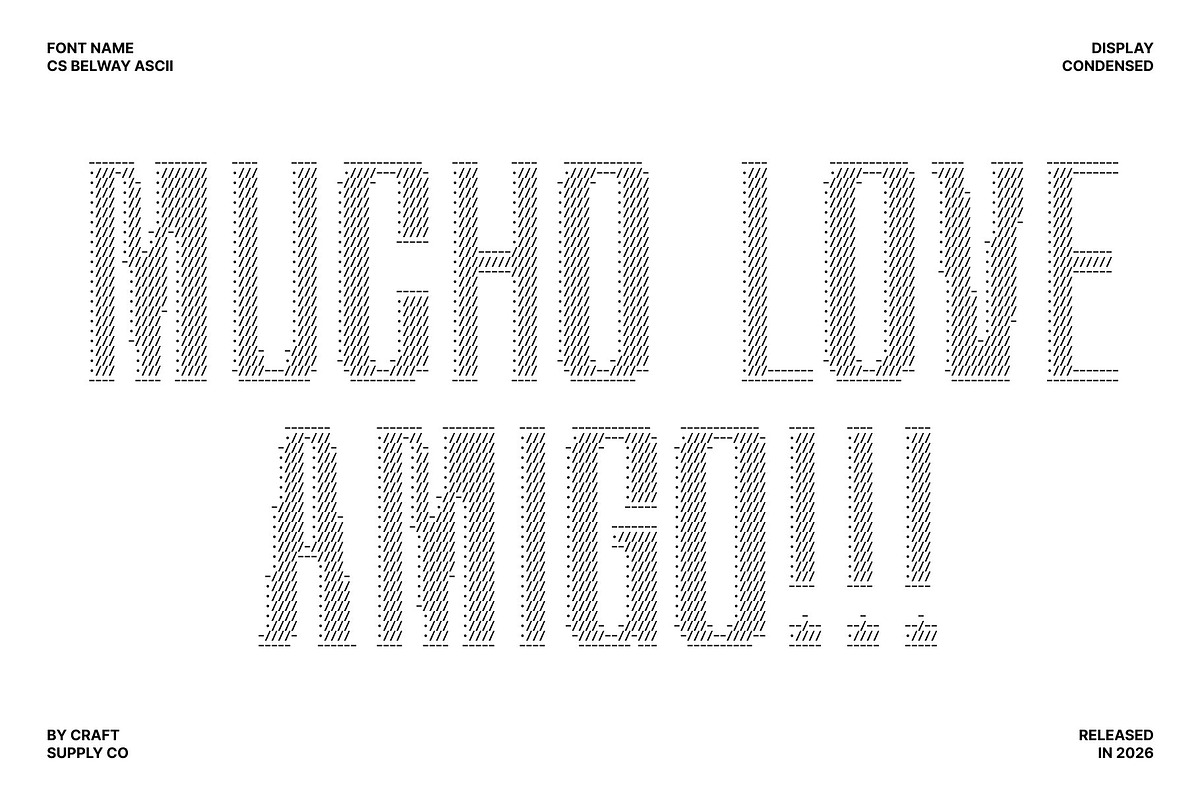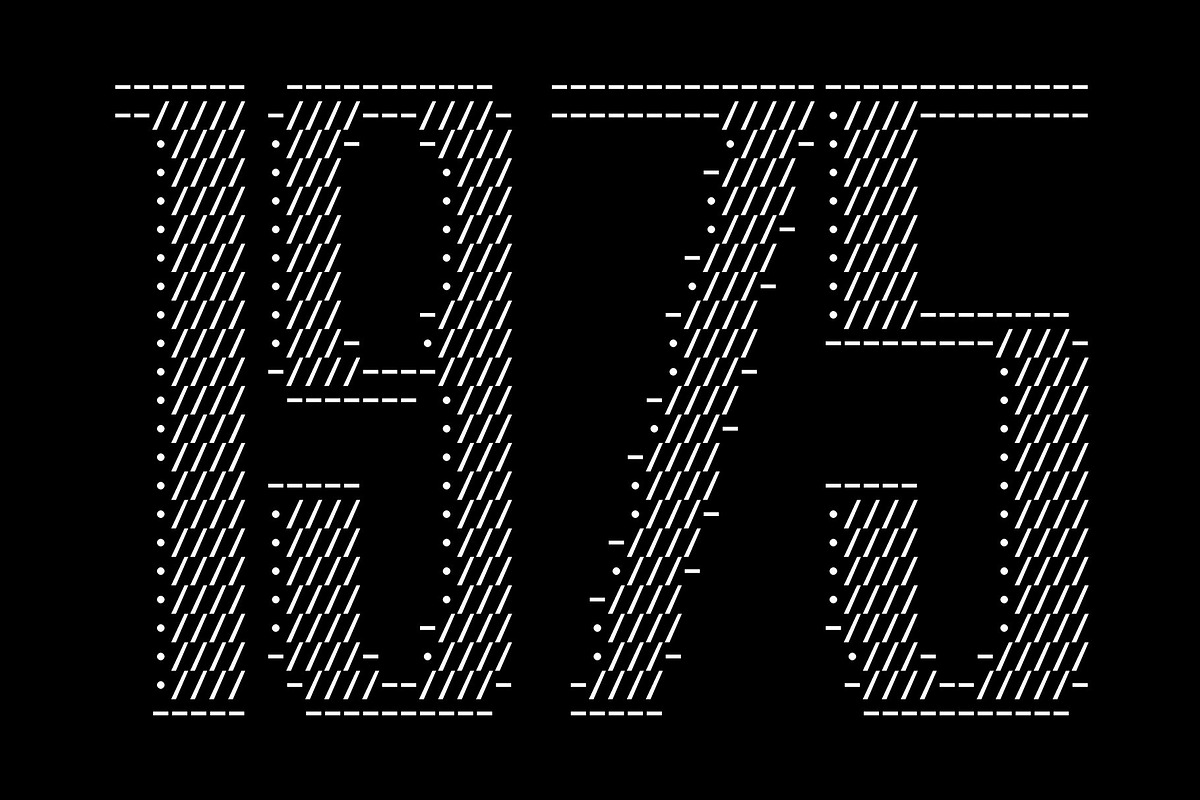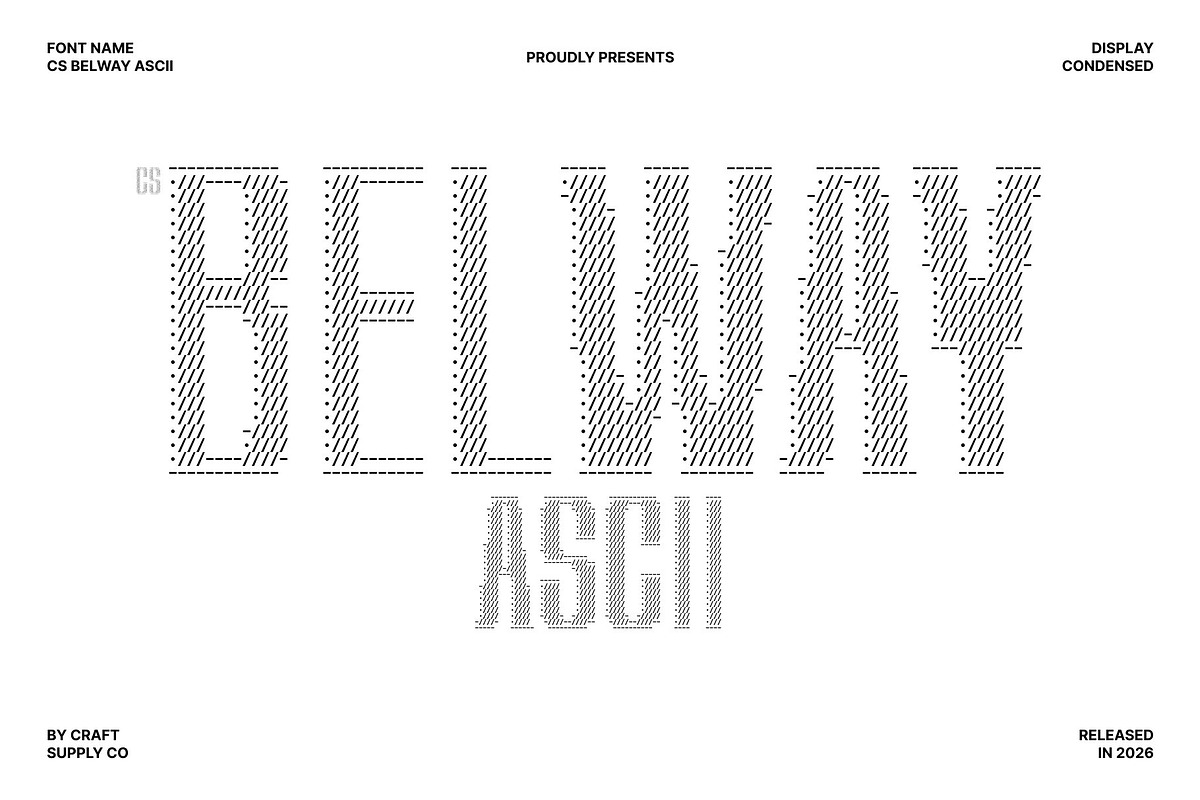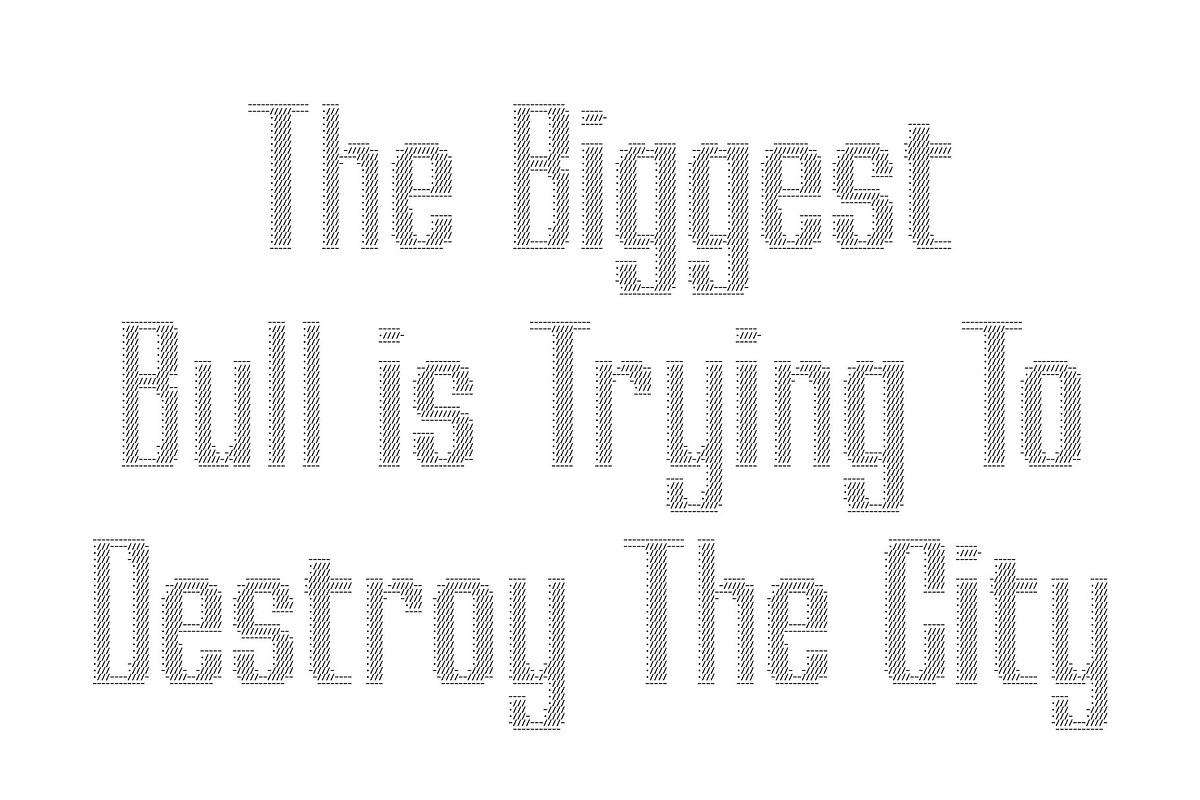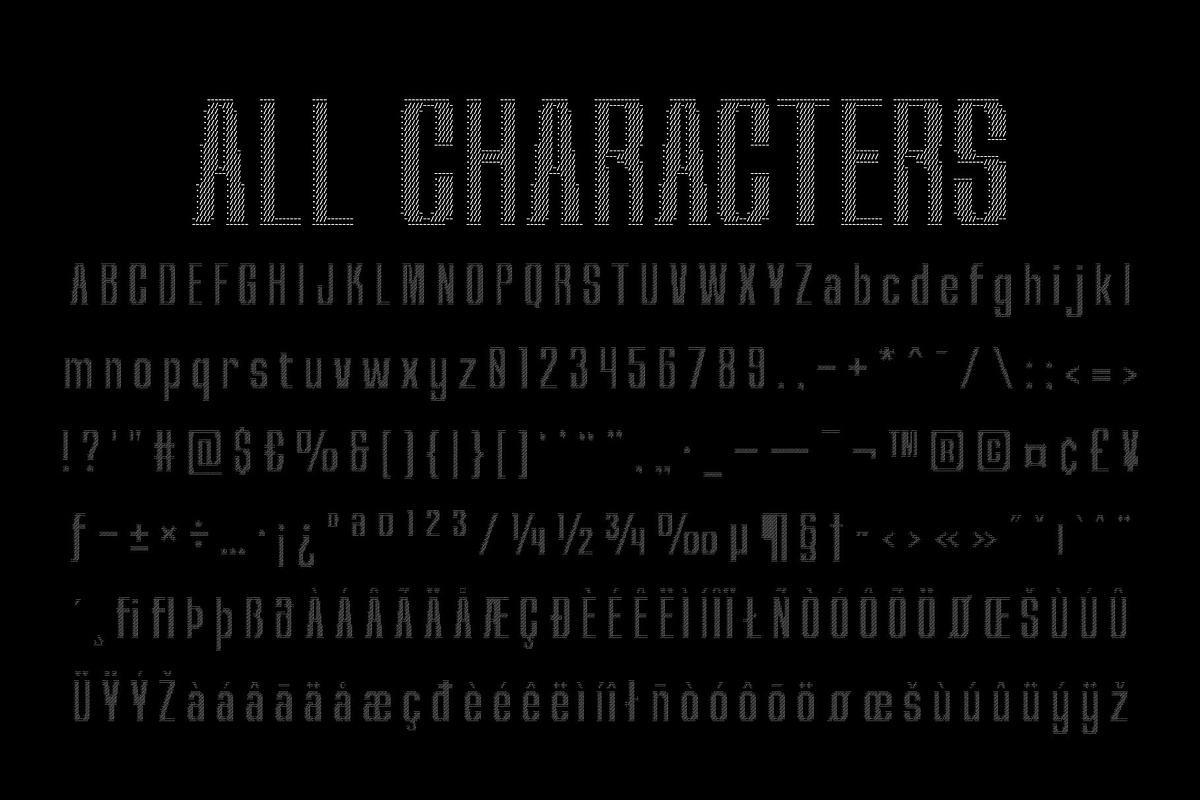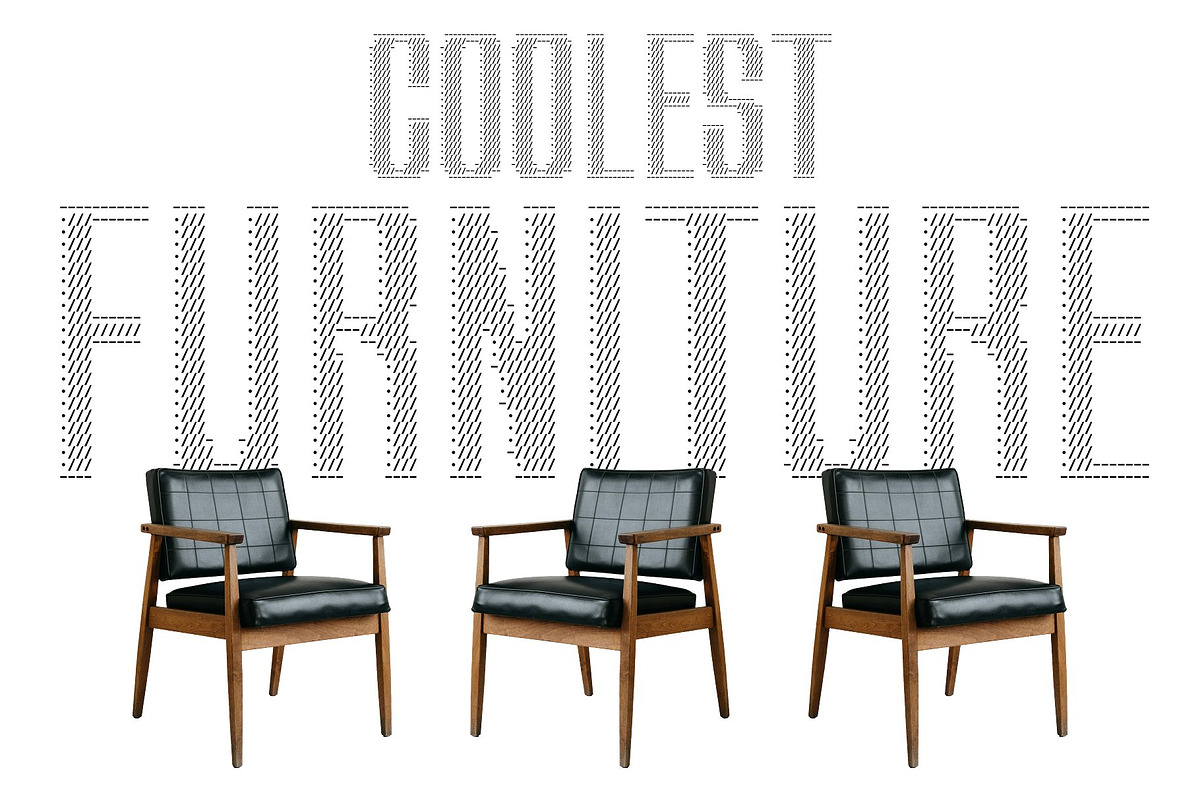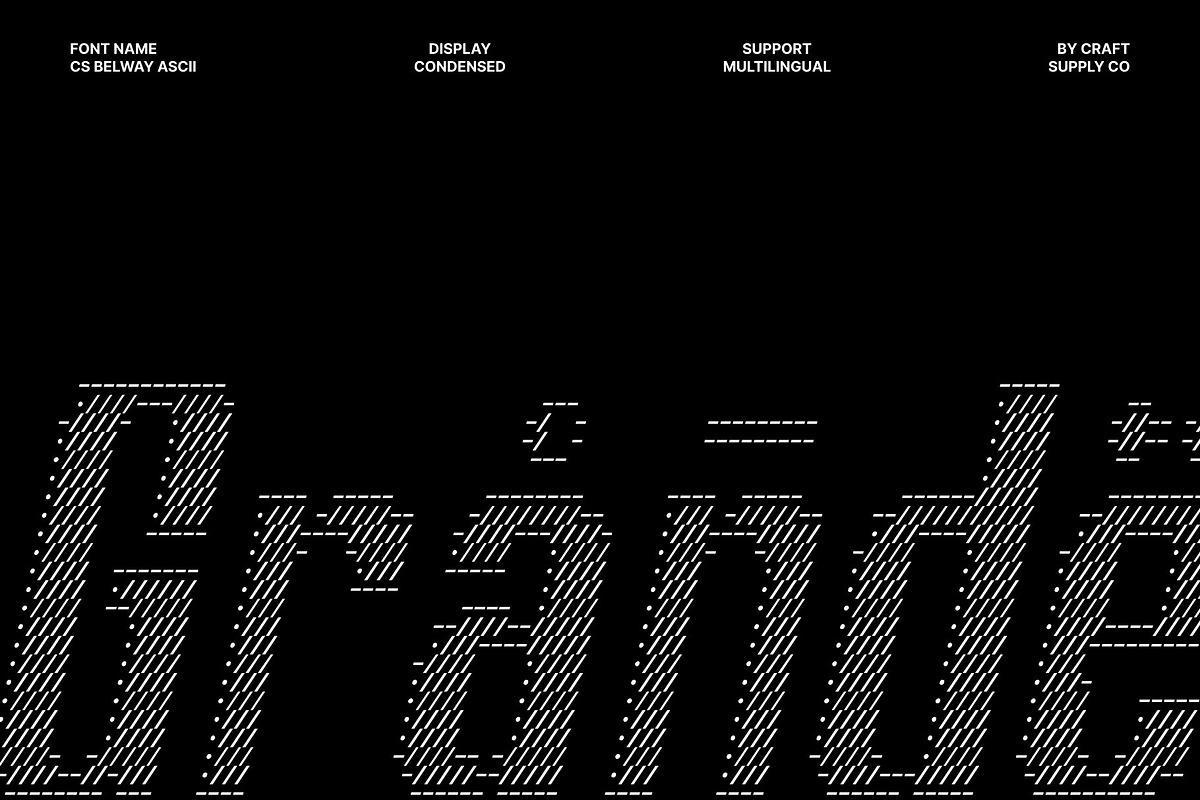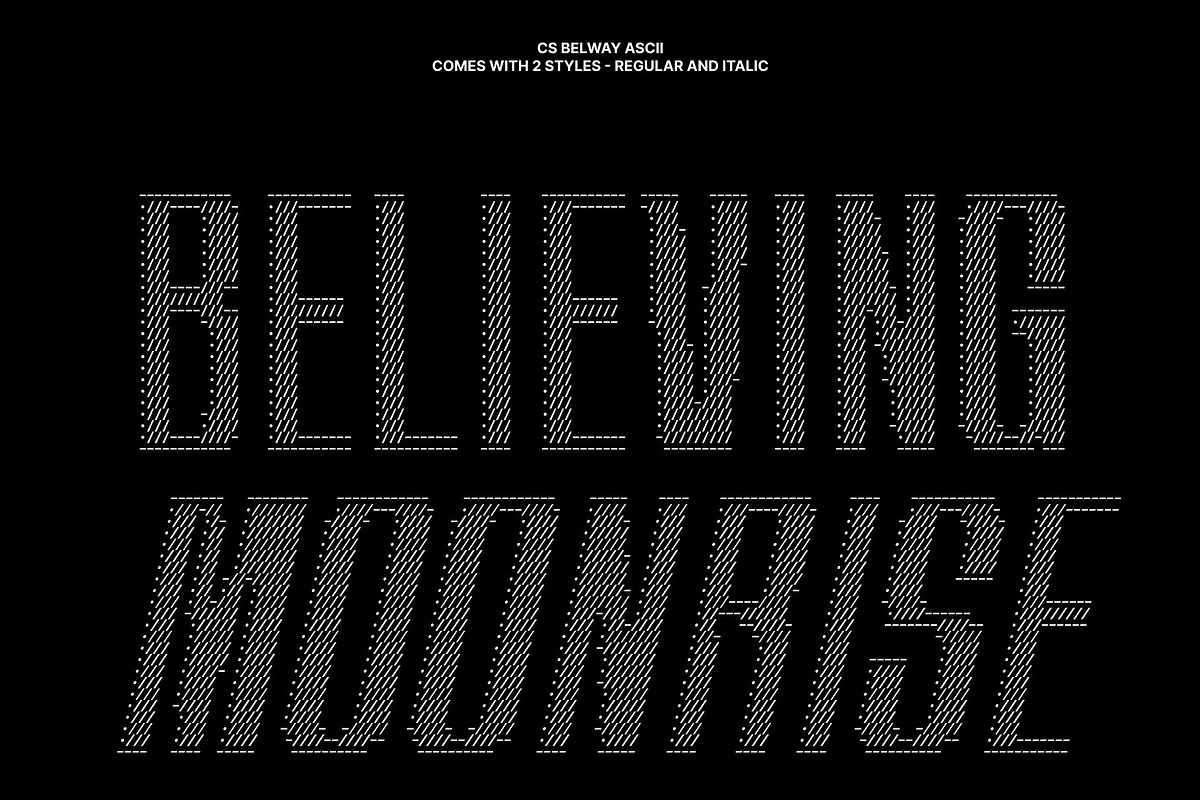
CS Belway Ascii
CS Belway Ascii – Condensed Sans Serif Display Font: Where Compact Power Meets Digital ASCII Style
Compact Modern Forms with Strong Visual Impact This is a condensed sans serif display font designed to deliver powerful visual impact in tight spaces. Its compact proportions and clean contemporary structure create a bold and efficient appearance filled with clarity, confidence, and modern energy.
ASCII Style with Symbolic Digital Construction This font transforms typography into decorative forms built from arranged characters and symbols. Inspired by terminal graphics and text-based digital art, the font creates image-like textures and cyber-inspired visuals while preserving readability and strong modern structure. This symbolic styling introduces a retro-computing atmosphere infused with futuristic digital energy.
Tech-Native Aesthetic with Futuristic Character Blending condensed sans serif typography with ASCII-inspired detailing, this font delivers a typographic identity that feels technological, modern, and visually immersive. Its narrow forms and digital symbolic styling evoke coding interfaces, hacker culture, retro gaming environments, and futuristic UI systems, making it ideal for high-energy tech-driven creative projects.
Perfect for Branding, Coding Events, and Digital Content This is perfect for logos, packaging, advertising, digital content, title banners, digital badges, coding competition schedules, tech branding, and futuristic promotional materials. Its condensed ASCII-styled forms make it ideal for interfaces, merchandise, streaming visuals, event graphics, and visual identities that seek an authentic and deeply tech-native atmosphere.
CS Belway Ascii Regular
CS Belway Ascii Italic